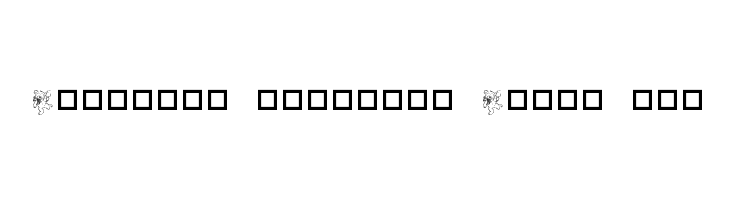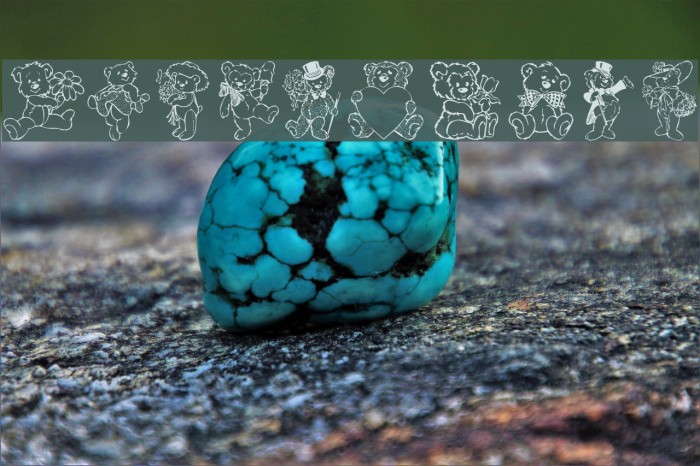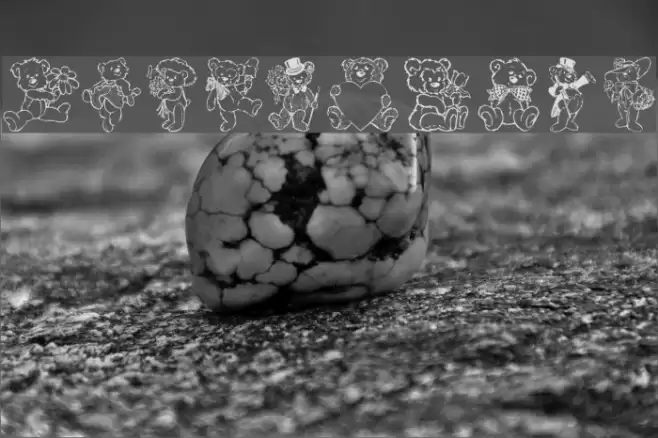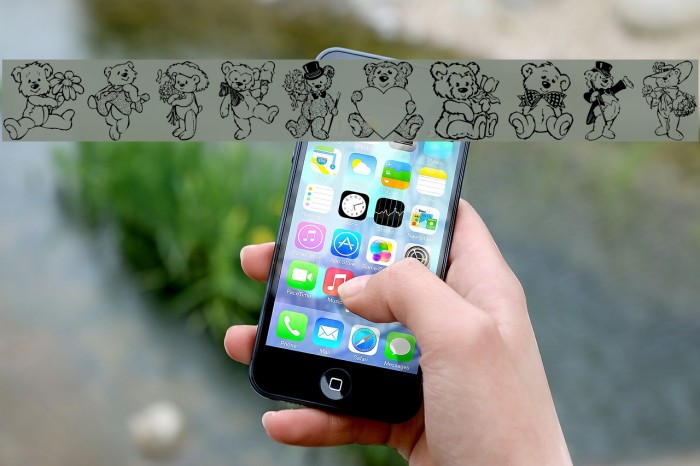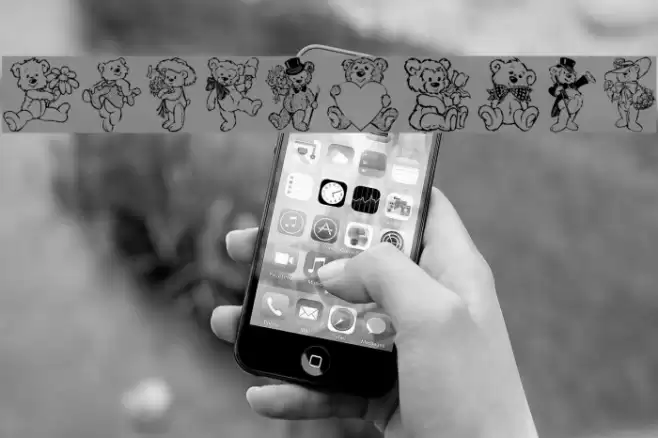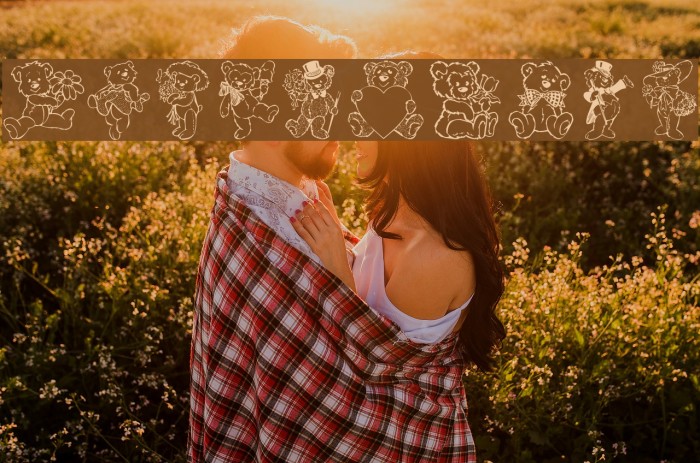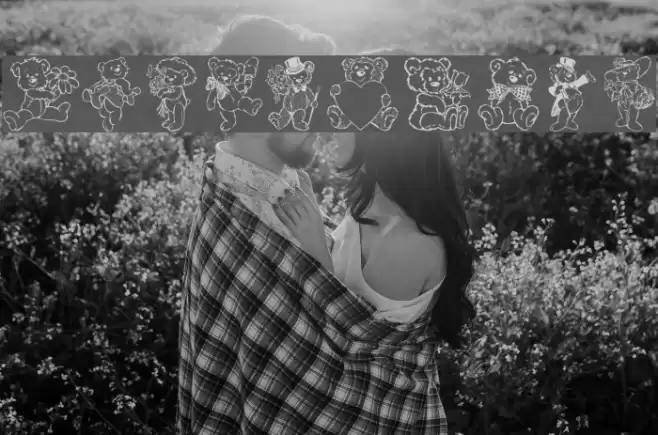
Destinys Teddbear Dings Two Font
Destinys Teddbear Dings Two Description
This is a decorative font featuring a series of charming teddy bear illustrations. Each character is represented by a unique teddy bear in various playful poses and outfits, adding a whimsical and friendly touch. The bears are detailed and expressive, making this font ideal for projects that require a fun and lighthearted aesthetic. The font does not include traditional alphanumeric characters, focusing instead on these delightful bear illustrations.
| Overall Style | Whimsical, Playful |
| Use Case | Decorative elements, Illustrative projects |
| Proposed Projects | Ideal for children's books, playful greeting cards, nursery decorations, and any project that benefits from a whimsical and friendly design. |